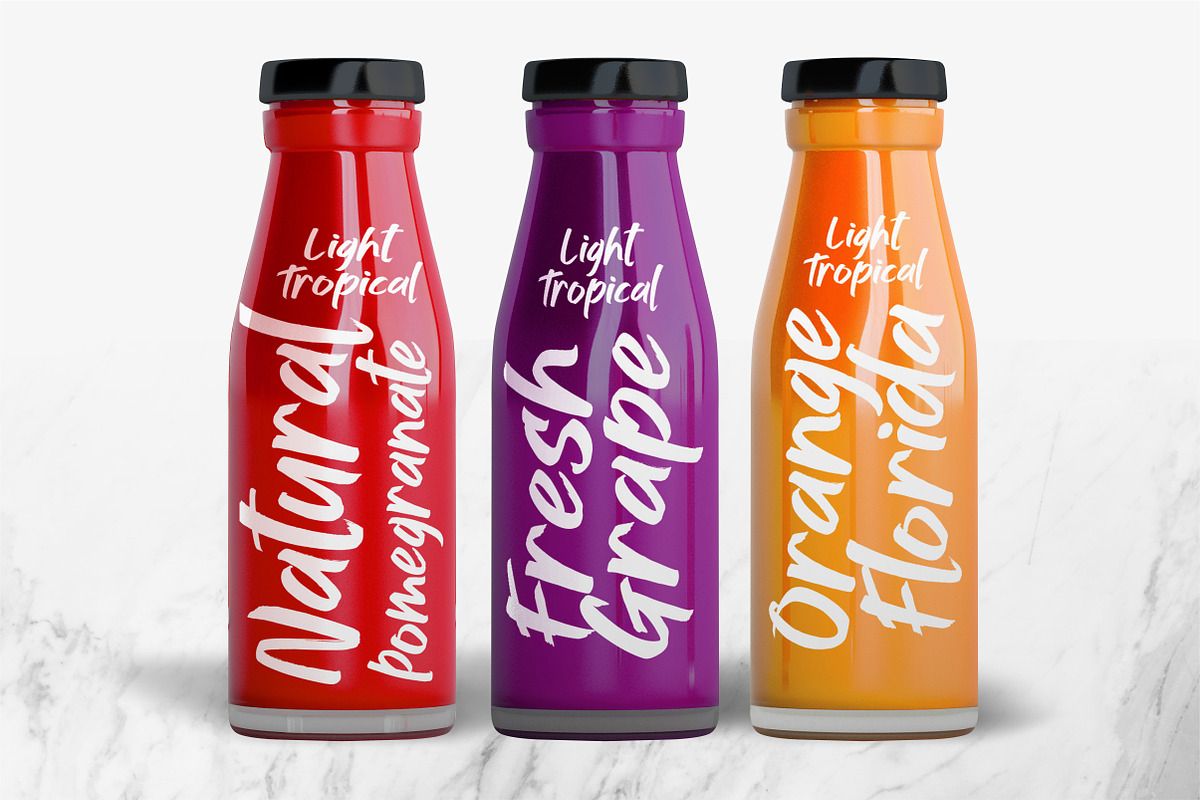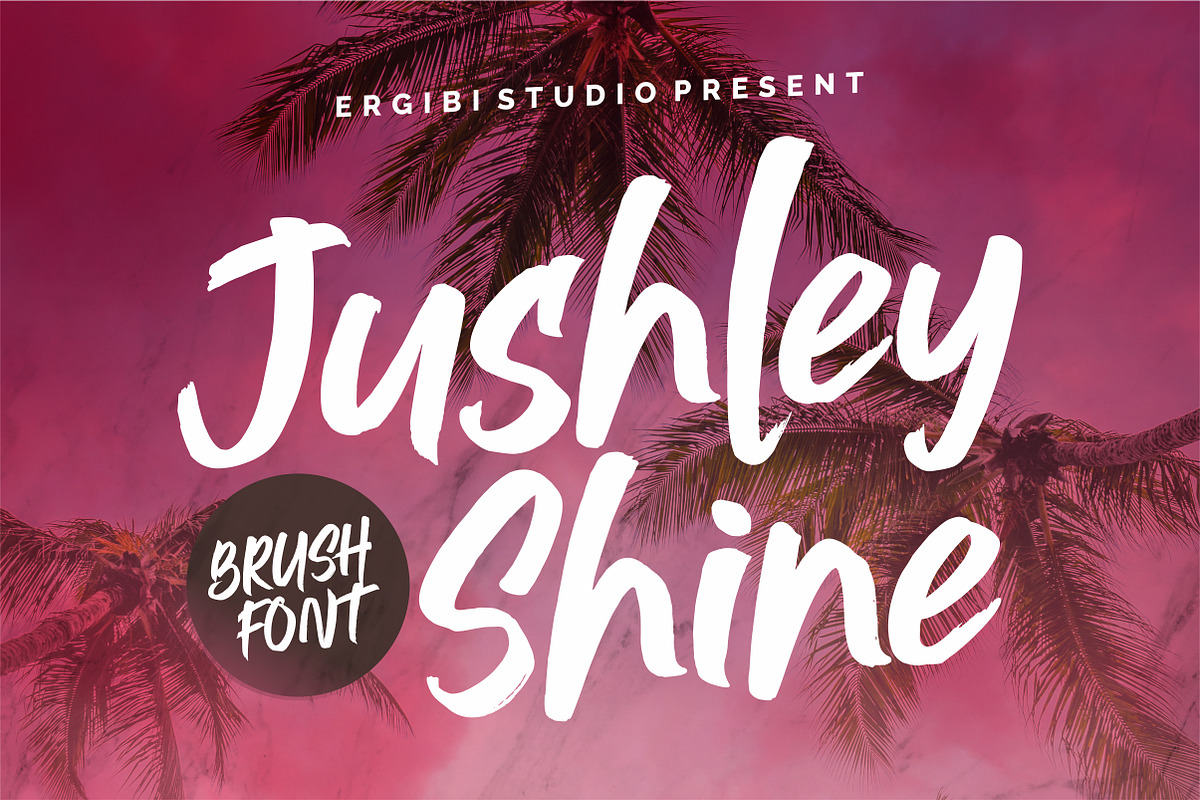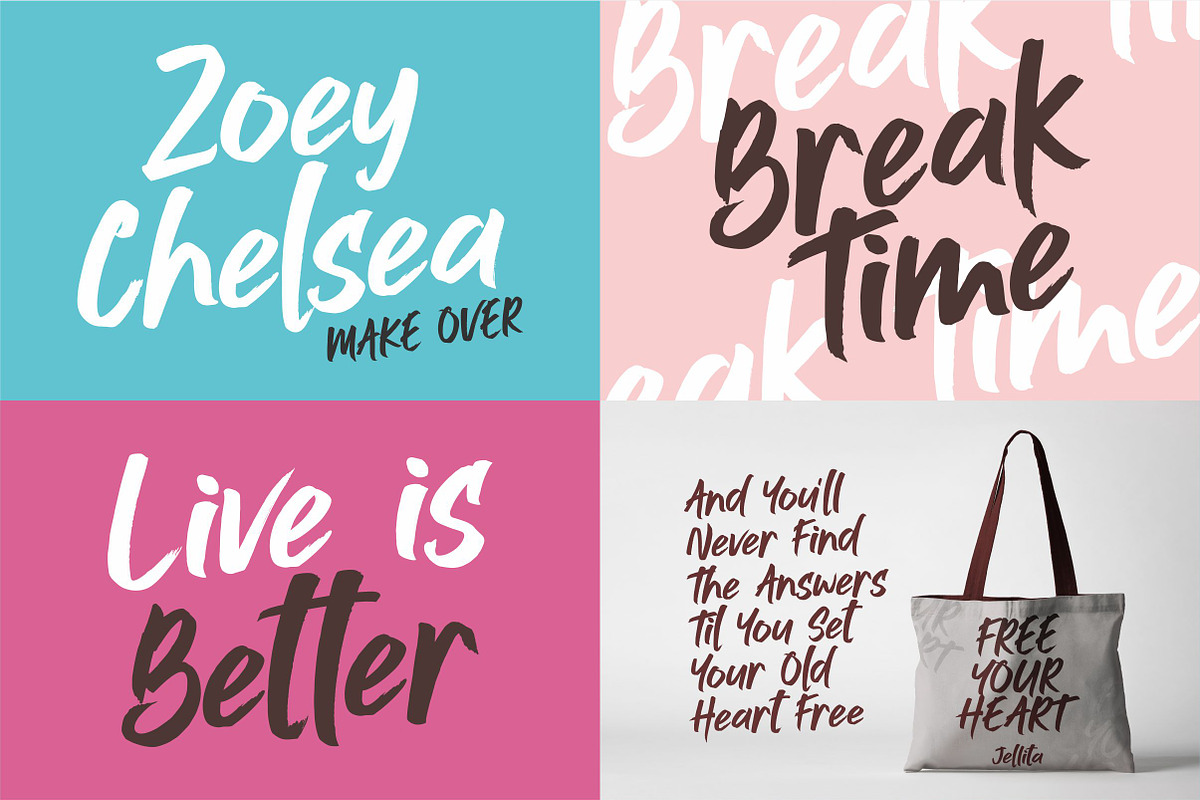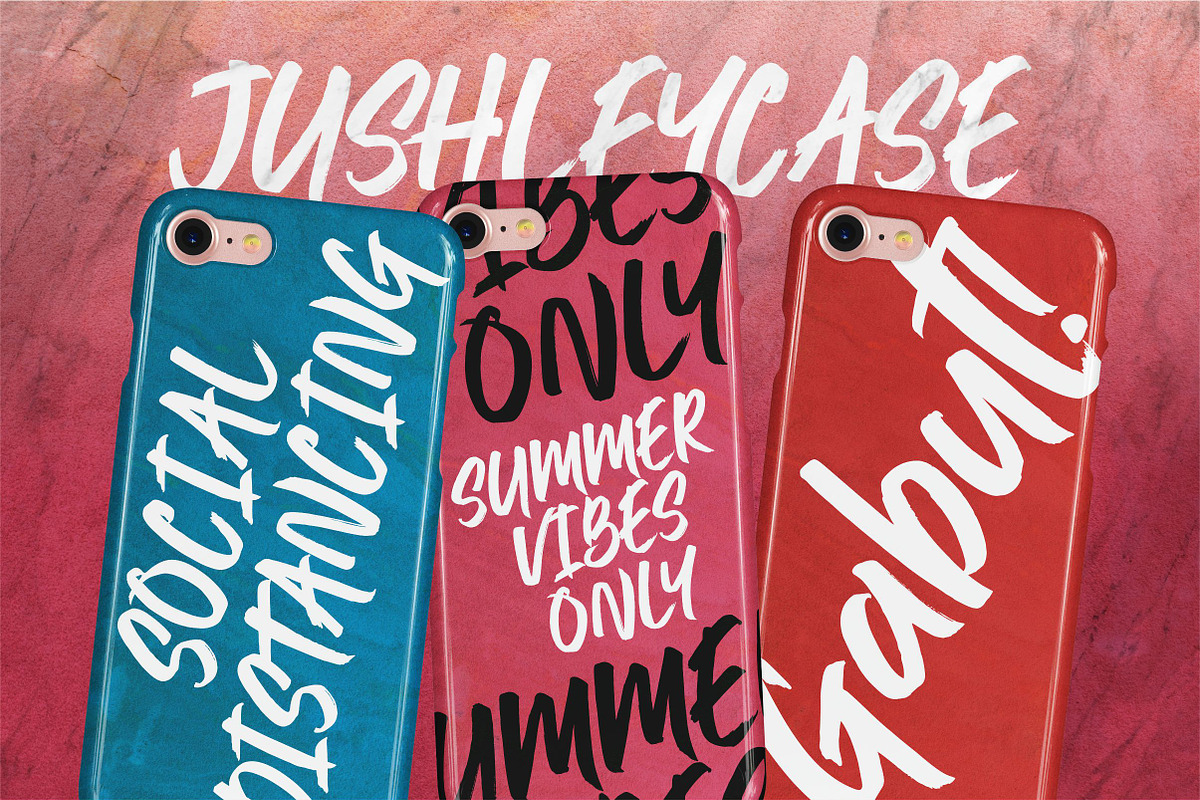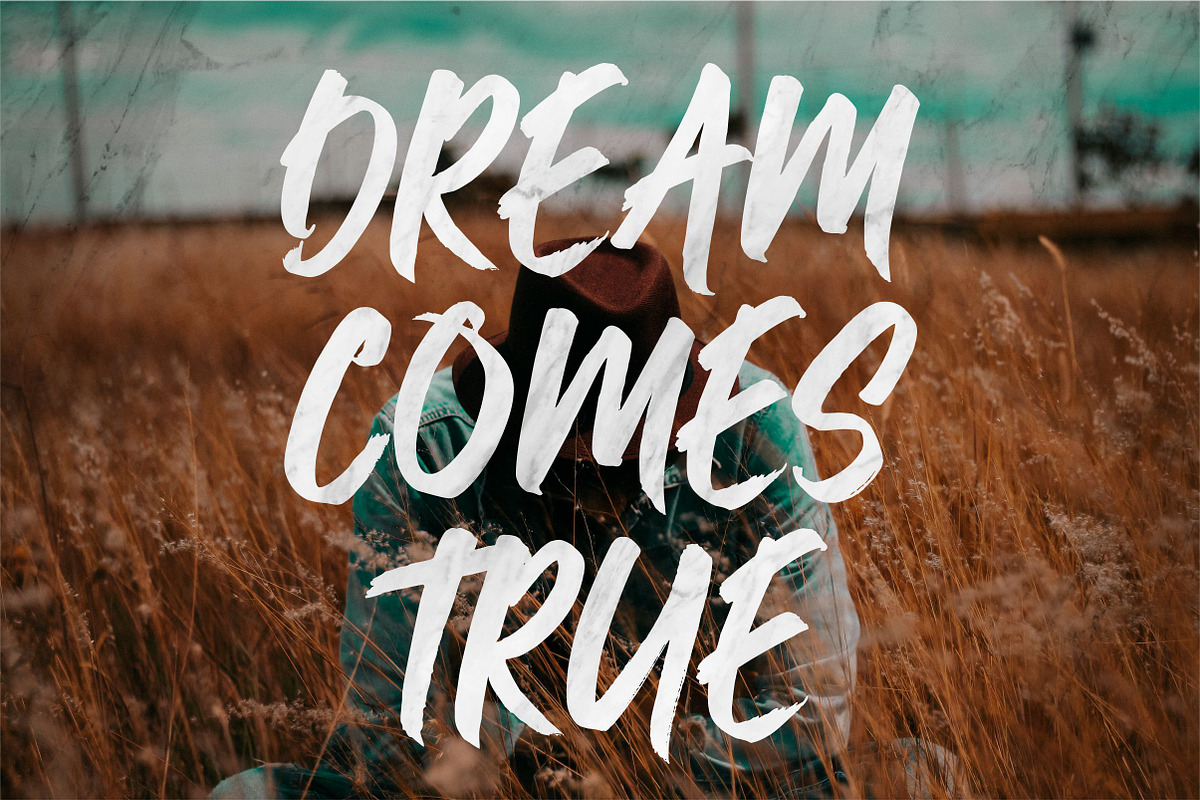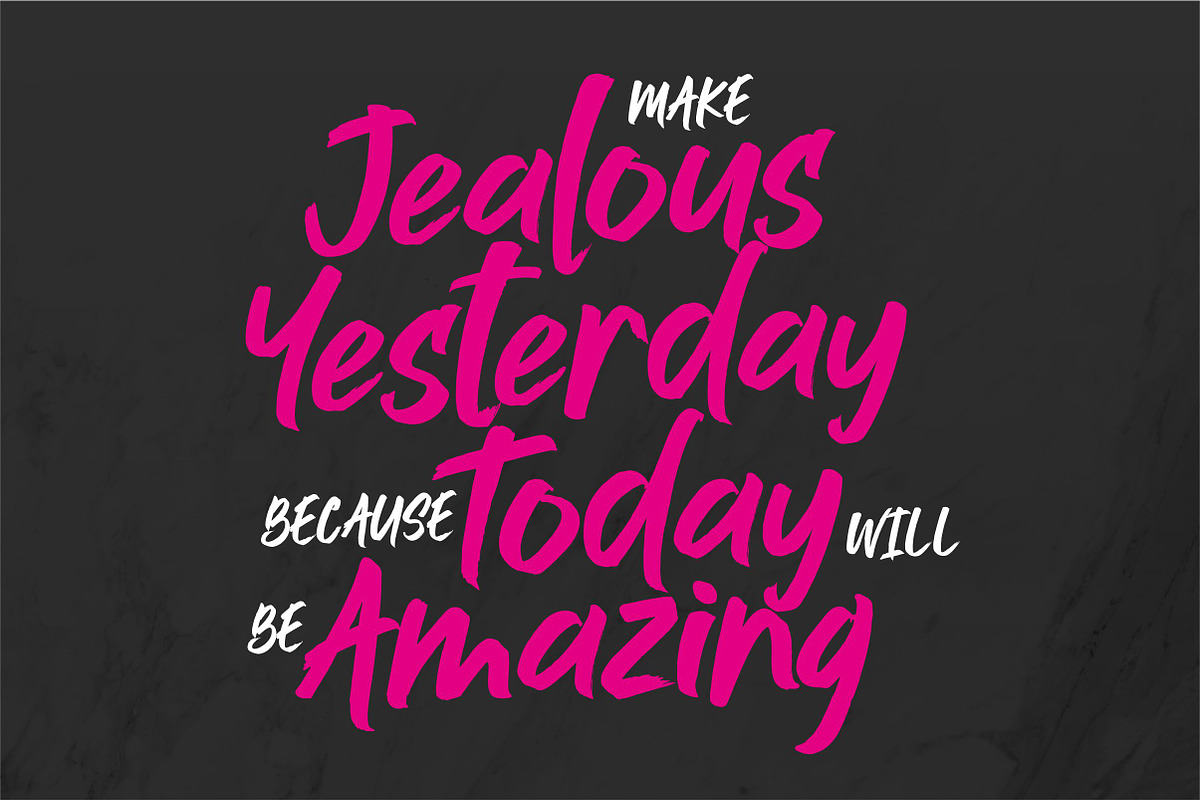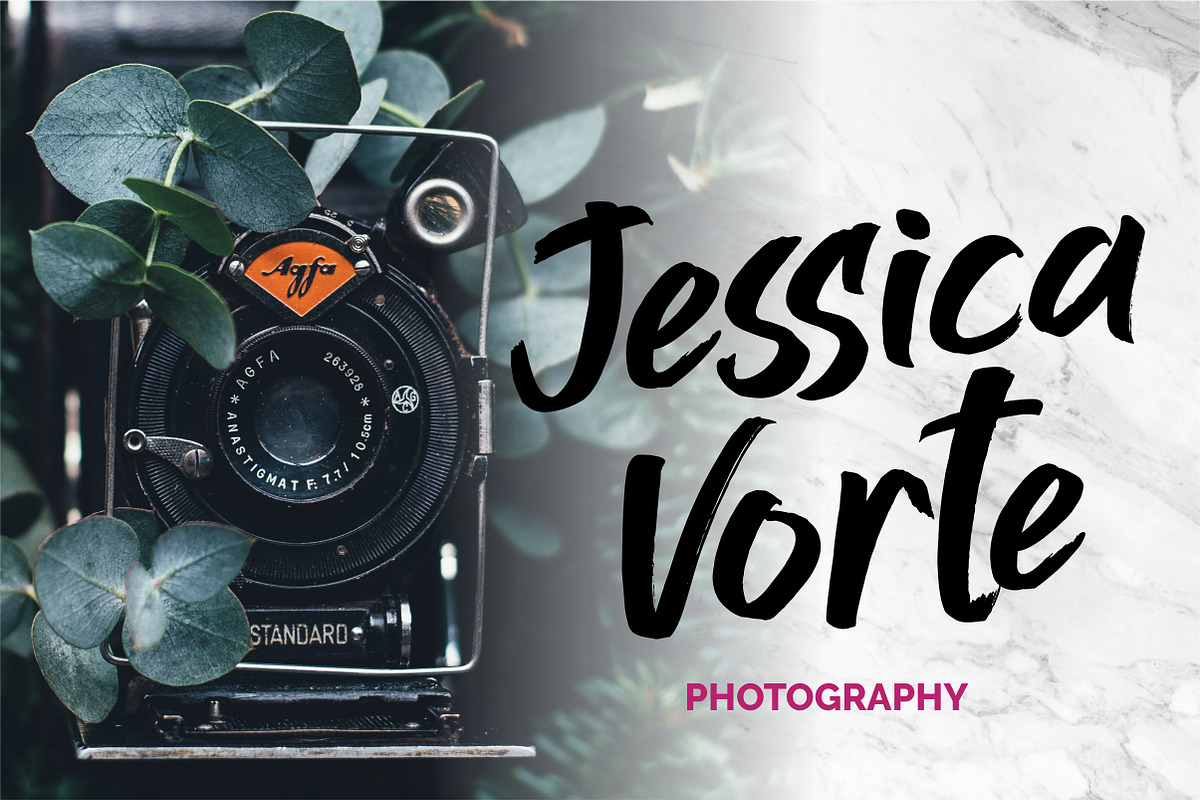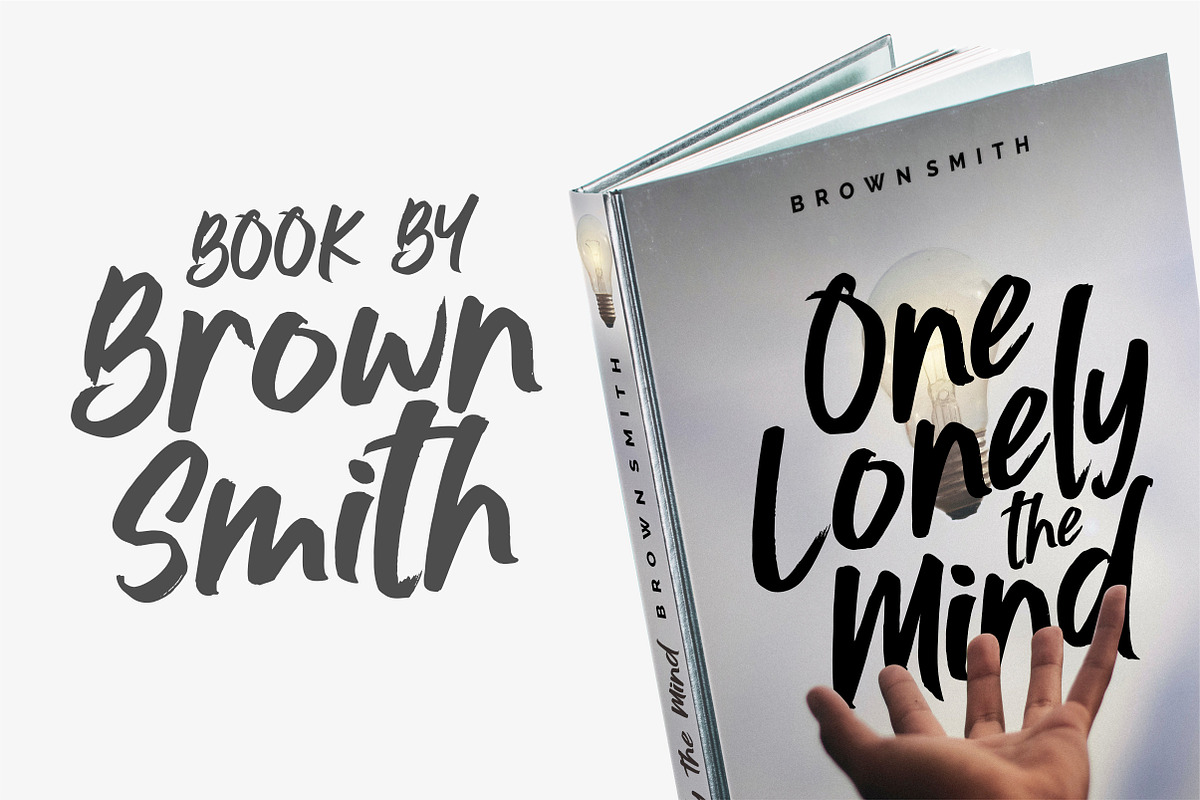
Jushley Shine - BRUSH FONT
Hey guys, Introducing my font Jushley Shine is Brush Font made from handwriting that contain lowercase, uppercase, symbol, and also support multi language. Jushley Shine also come to help you to make some products like make a poster for branding, packaging, beautiful fashion design, suitable for wedding invitation, or handwritten quote.
Jushley Shine - BRUSH FONT by ErgibiStudio fits naturally into Branding, posters, packaging, typography.